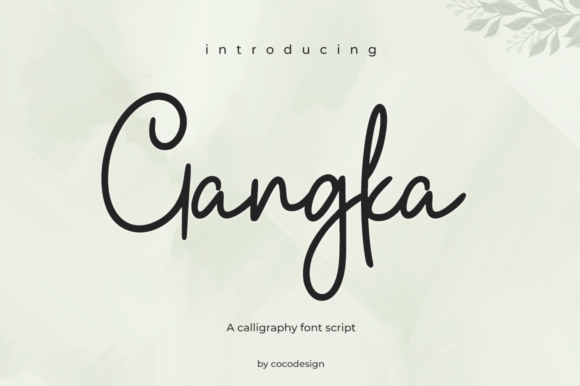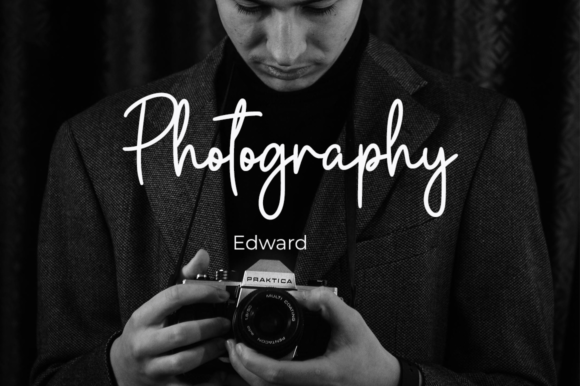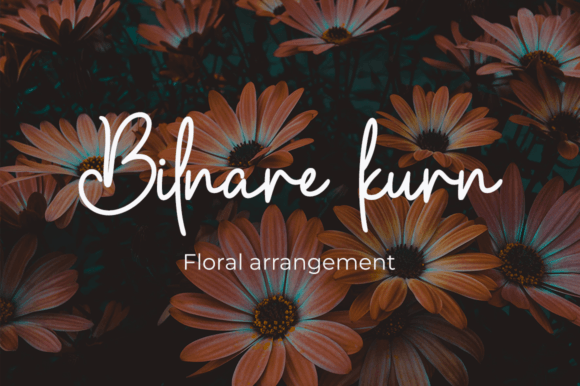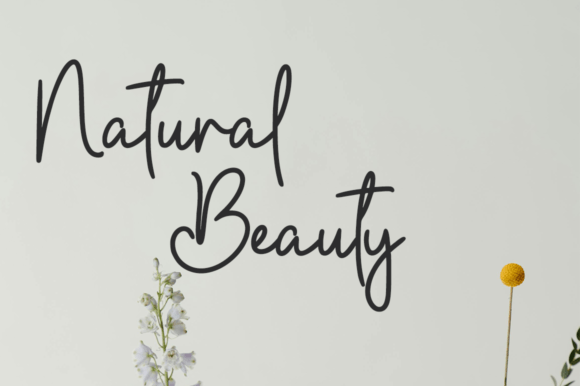
Gangka Font
About the Gangka Font
Step up your design game with Gangka Font, a font that exudes confidence and style. Introducing Gangka Script: a font subtly drawn from the timeless charm of vintage calligraphy. Skillfully designed to infuse elegance into every stroke, it is particularly suited for sophisticated logos, nuptial invitations, contemporary web design, heartfelt greeting cards, and beyond. Experience a touch of class that speaks volumes with Gangka Script.
Gangka Script’s elegant, yet slightly playful personality makes it ideal for branding projects requiring a touch of vintage sophistication, particularly in the fashion, beauty, or wedding industries. It excels in headlines, short text blocks, and logos, adding a distinctive flair to packaging and stationery design. However, its delicate stroke weight makes it less suitable for body text or UI elements where high readability is paramount.
For optimal visual harmony, pair Gangka Script with a clean sans-serif like Montserrat for a modern contrast, or a classic serif like Garamond for a more traditional feel. A geometric sans-serif such as Lato could also provide a contemporary counterpoint, while a playful handwritten font could enhance its inherent charm for specific applications.
Avoid using Gangka Script for large amounts of text. Its strength lies in its ability to create a memorable visual impact through carefully chosen applications where its graceful curves and refined details can shine.